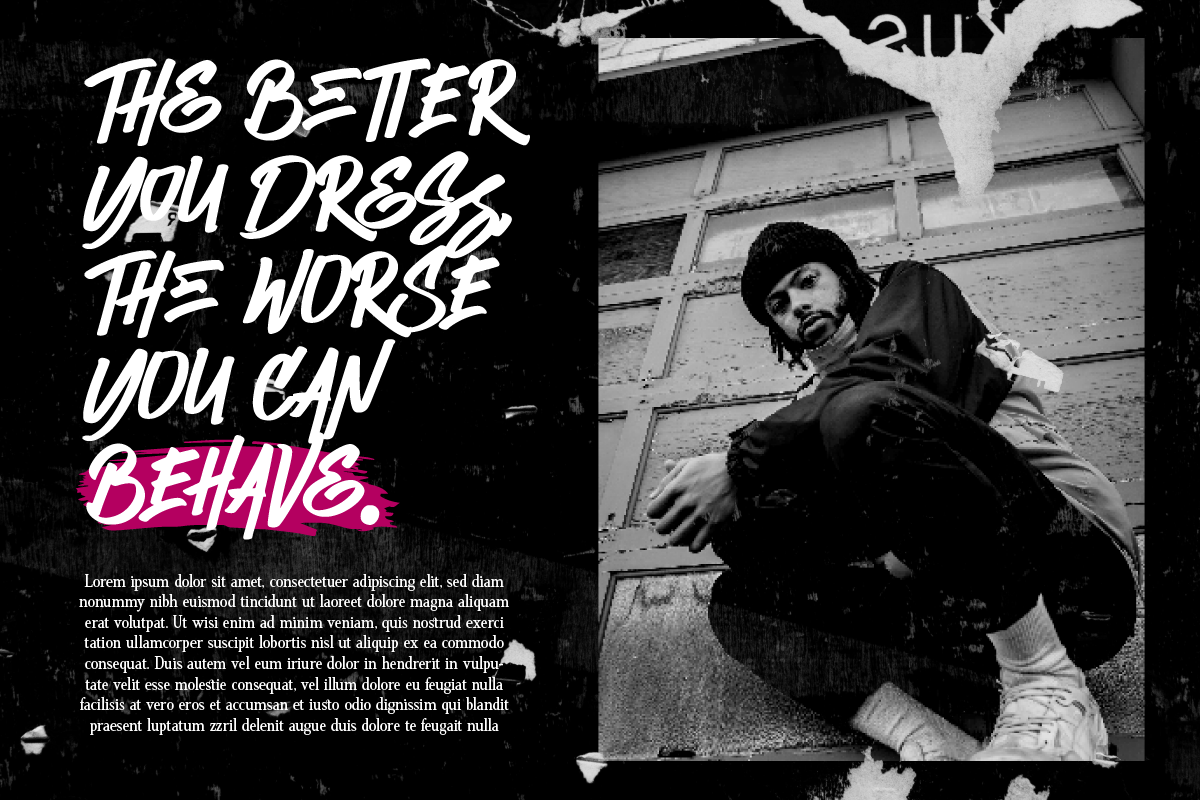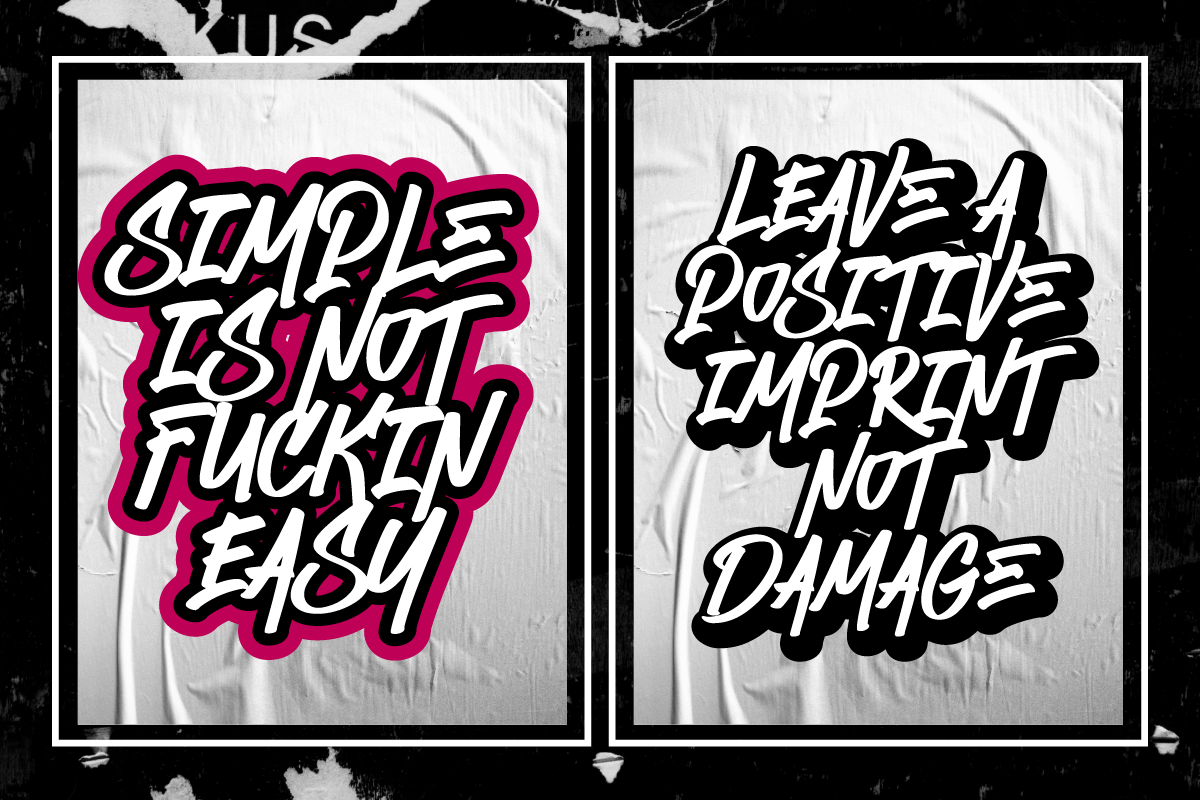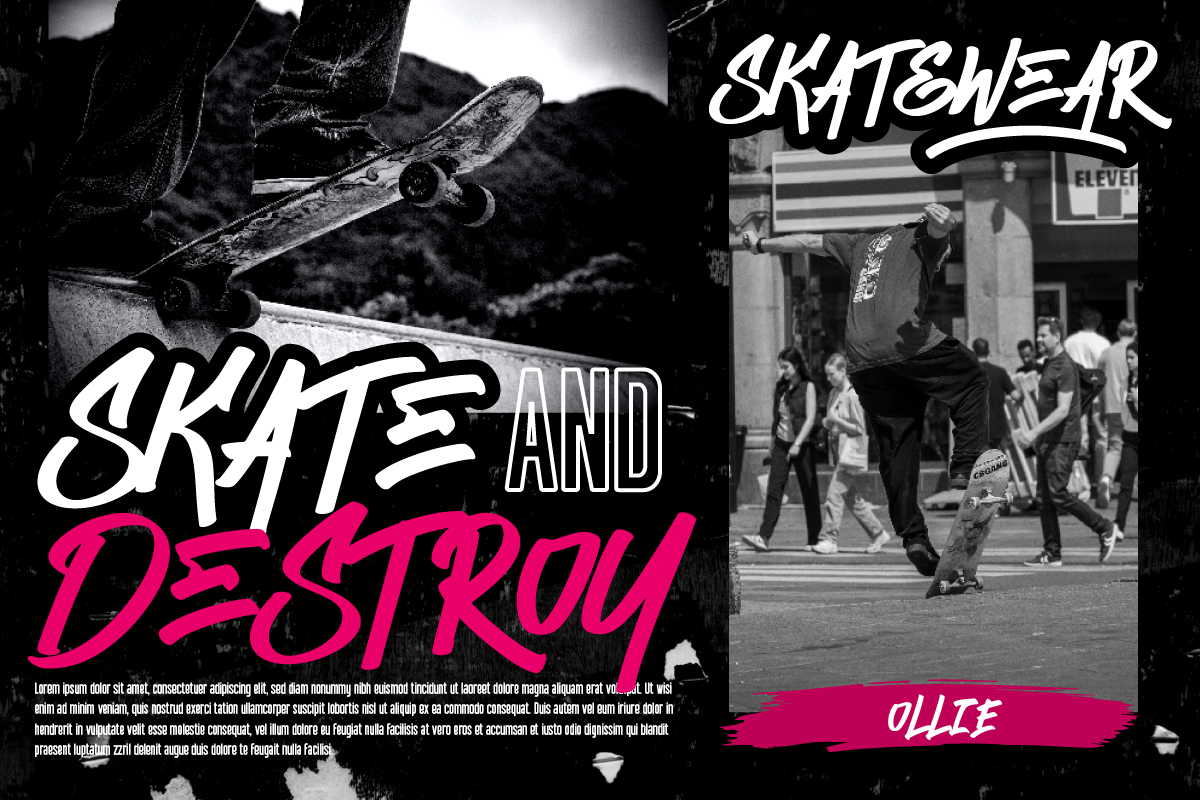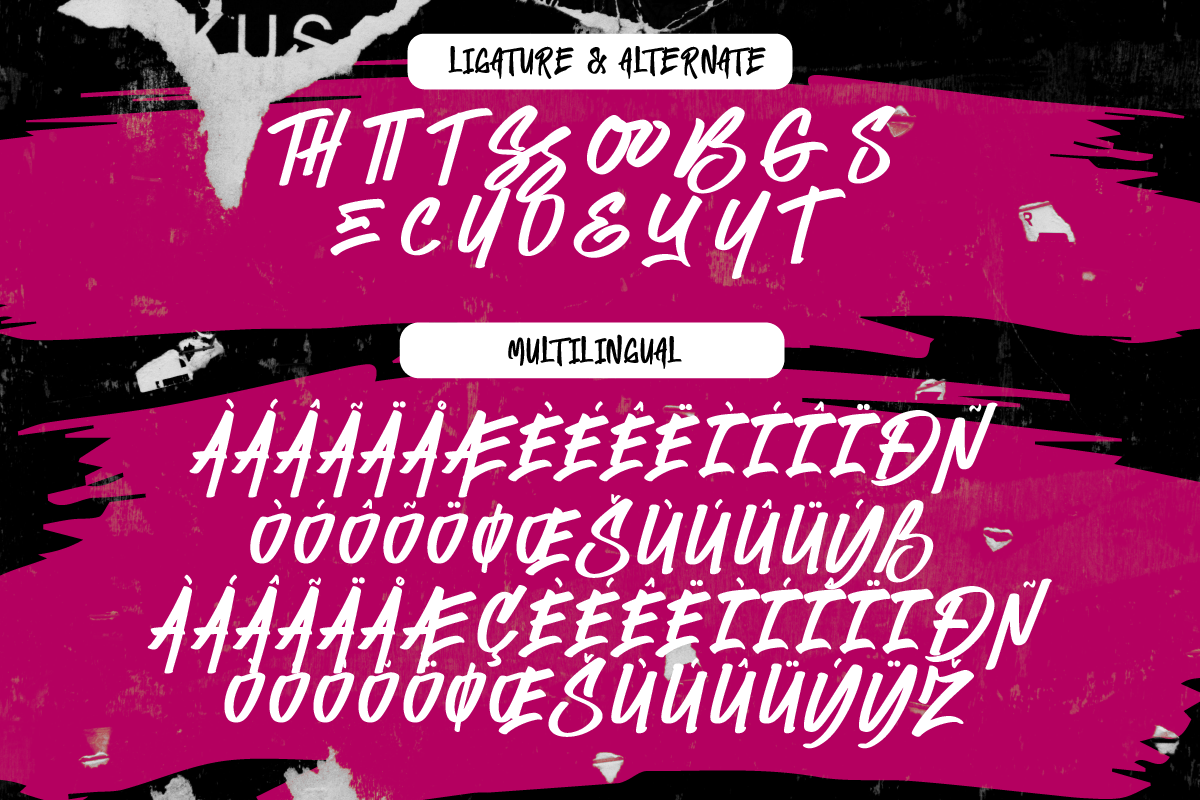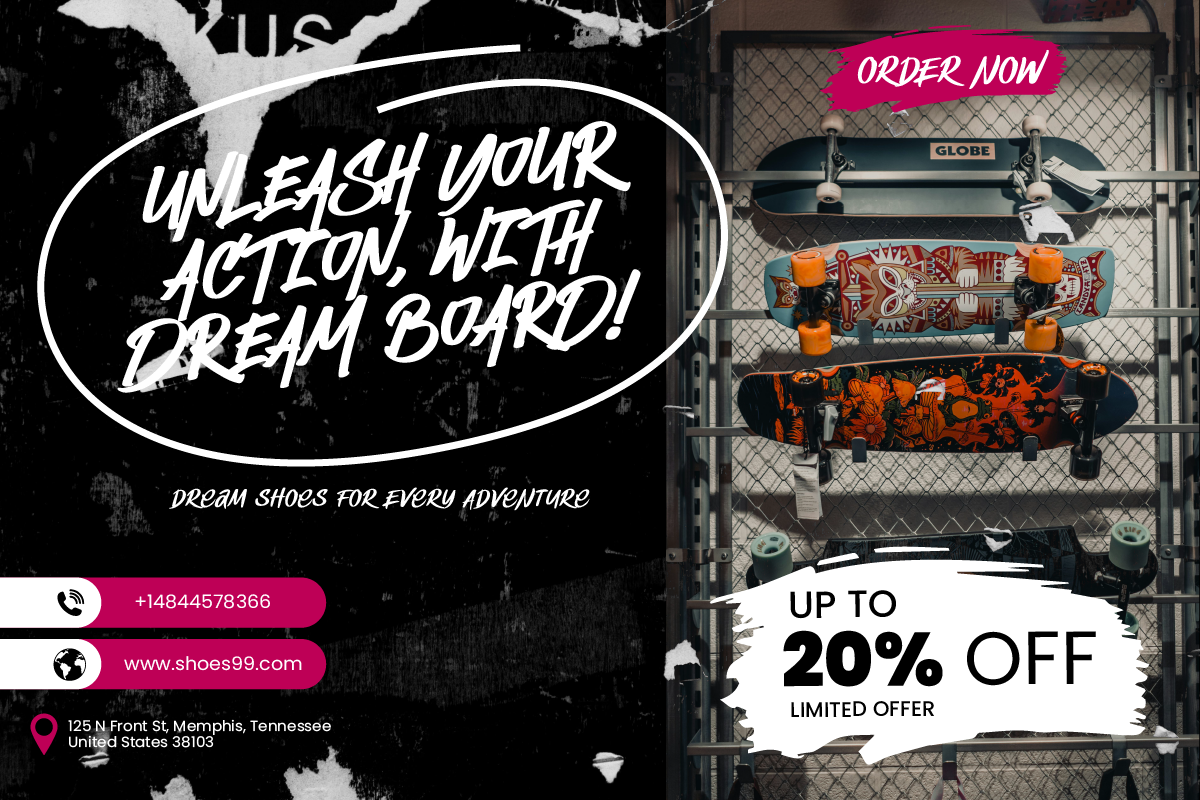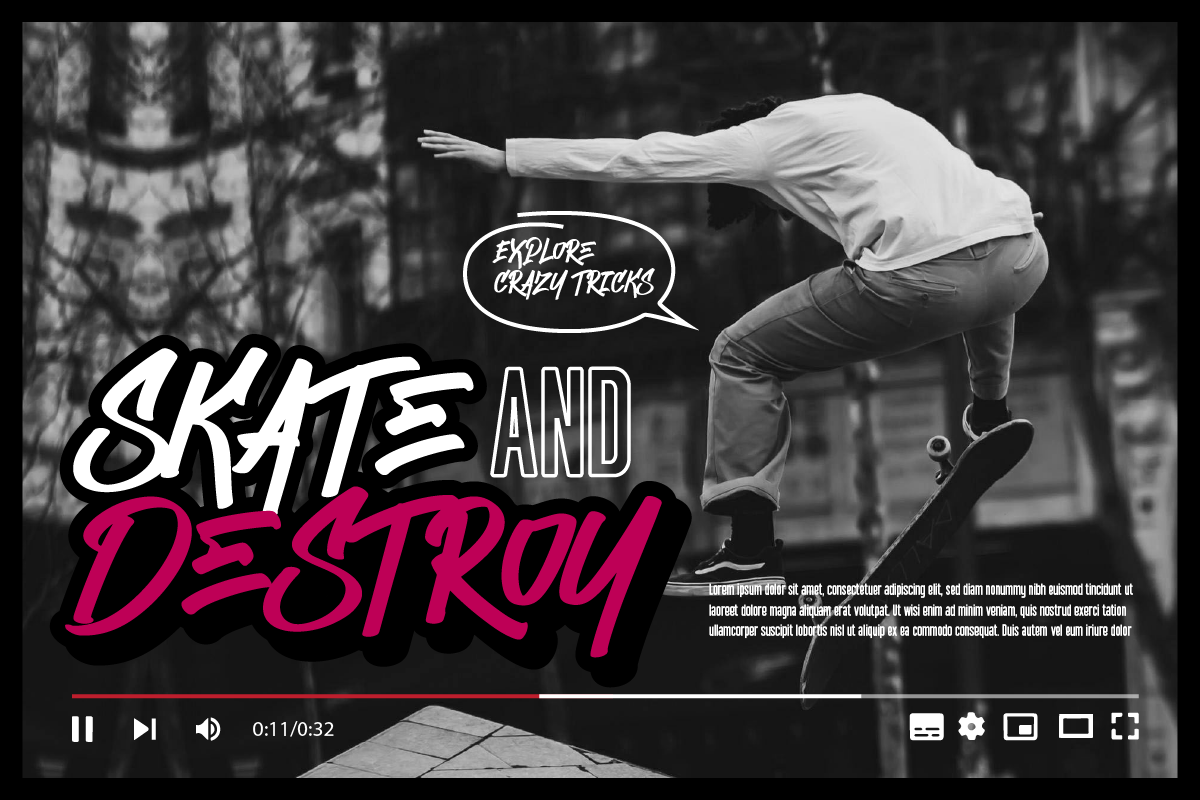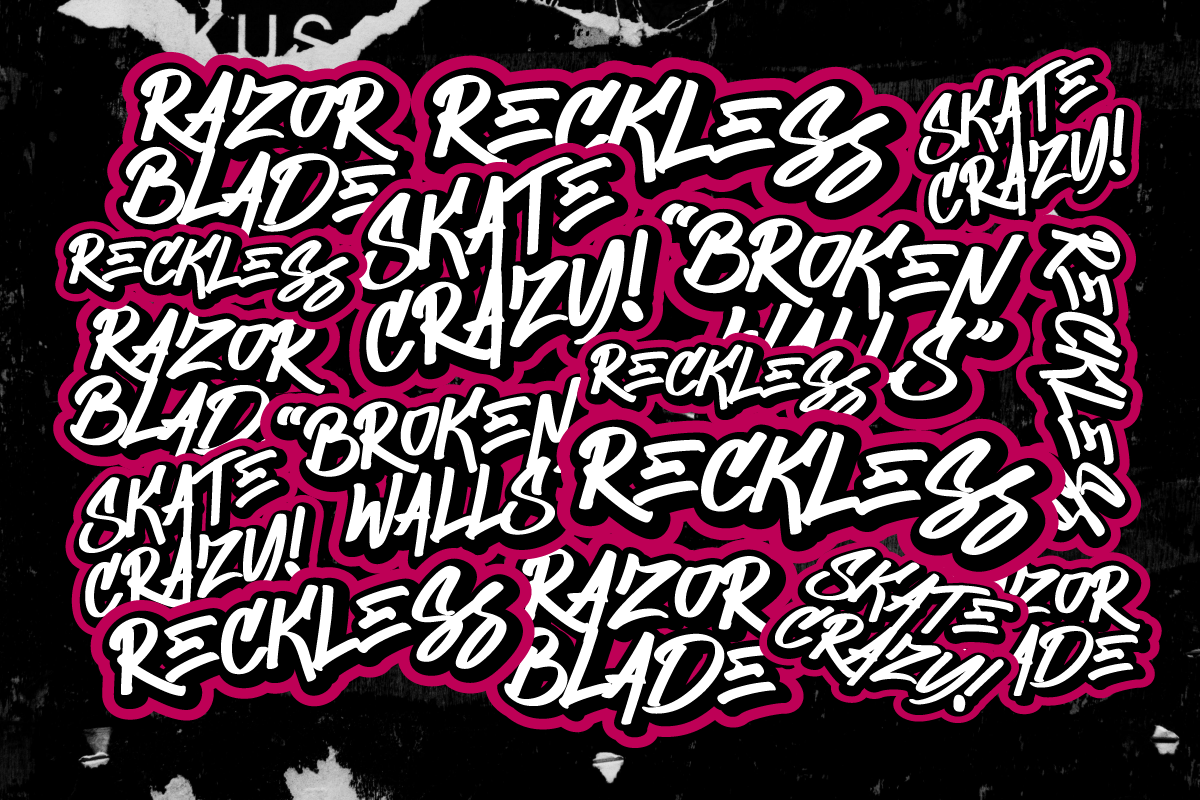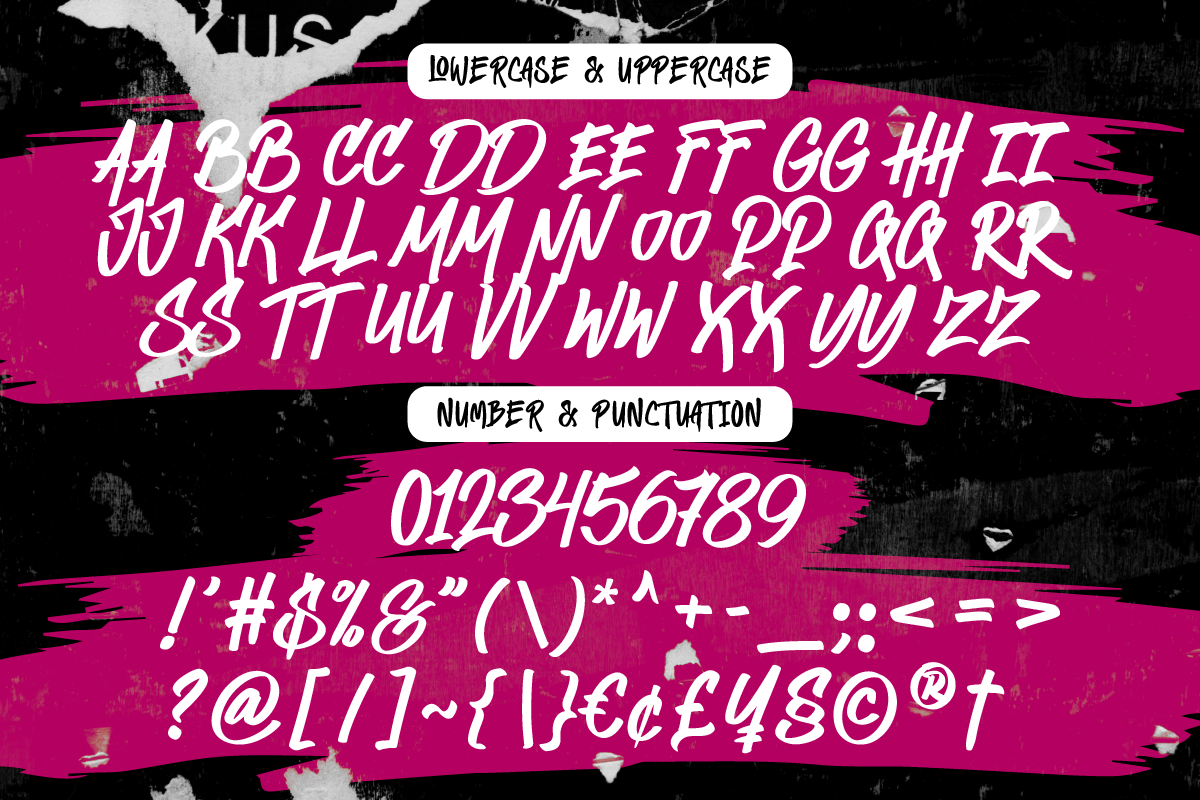
Echoed Vandalism Street Graffiti
🔥 Echoed Vandalism is a dynamic and bold Street Graffiti Font inspired by the rebellious spirit of urban art, hip-hop culture, and street vandalism. This font brings an authentic spray-painted look, making it perfect for streetwear branding, graffiti-style posters, skateboarding graphics, urban album covers, and edgy merchandise.
💥 Why Choose Echoed Vandalism?
✔ True Graffiti Aesthetic – Wild strokes, bold curves, and raw street-style lettering.
✔ Perfect for Urban Culture & Hip-Hop – Whether designing for music, fashion, or extreme sports, this font delivers an edgy vibe.
🎨 Best Used For:
✅ Graffiti-Inspired Posters & Flyers
✅ Hip-Hop & Streetwear Branding
✅ Skateboarding & BMX Graphics
✅ Music Album Covers & DJ Event Promotions
✅ Urban Merchandise & Clothing Design
✔ Full Uppercase & Lowercase Letters
✔ Special Ligatures, Swashes & Alternates
✔ Multilingual Support